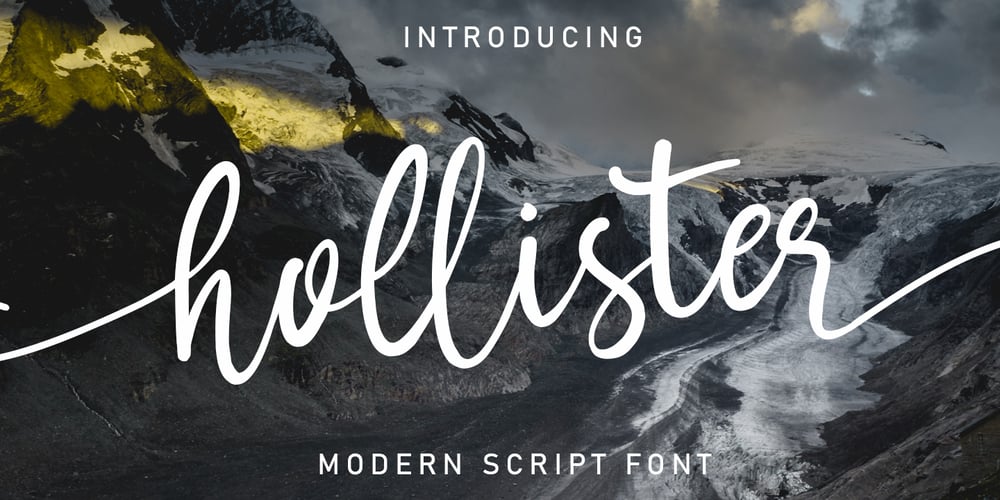
Hollister Font Family was designed by Asep Rendi and published by Arendxstudio. Hollister contains 1 styles and family package options. Hollister is a modern script font created with a natural brush. This font is very beautiful when combined with era now design concepts. Hollister comes with OpenType features such stylistic alternates, stylistic sets & ligatures which are good for logotype, poster, badge, book cover, t-shirt design, packaging and much more.Features : Character Set A-Z, Numerals & Punctuations (OpenType Standard), Accents (Multilingual characters), Ligatures, Swashes.There it is! I really hope you enjoy it – comments & likes are always welcome and accepted. More importantly, don’t hesitate to send a message if you have a problem or question.